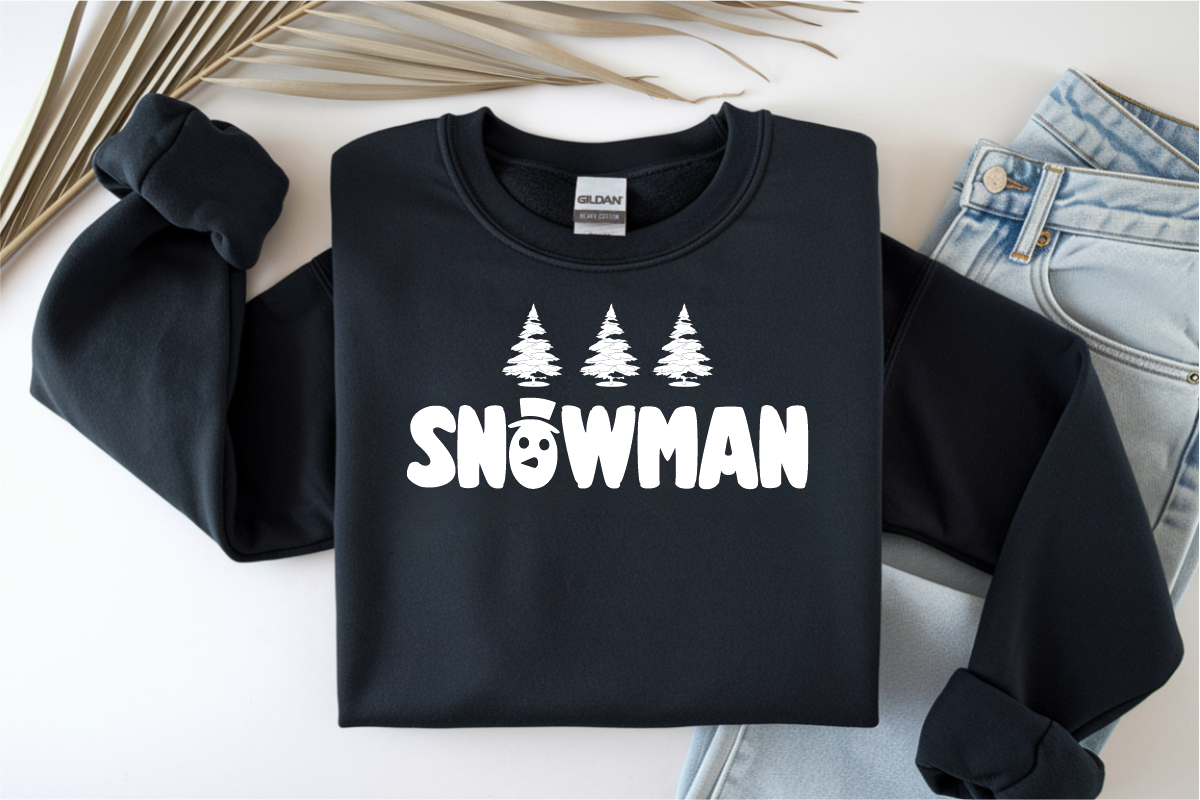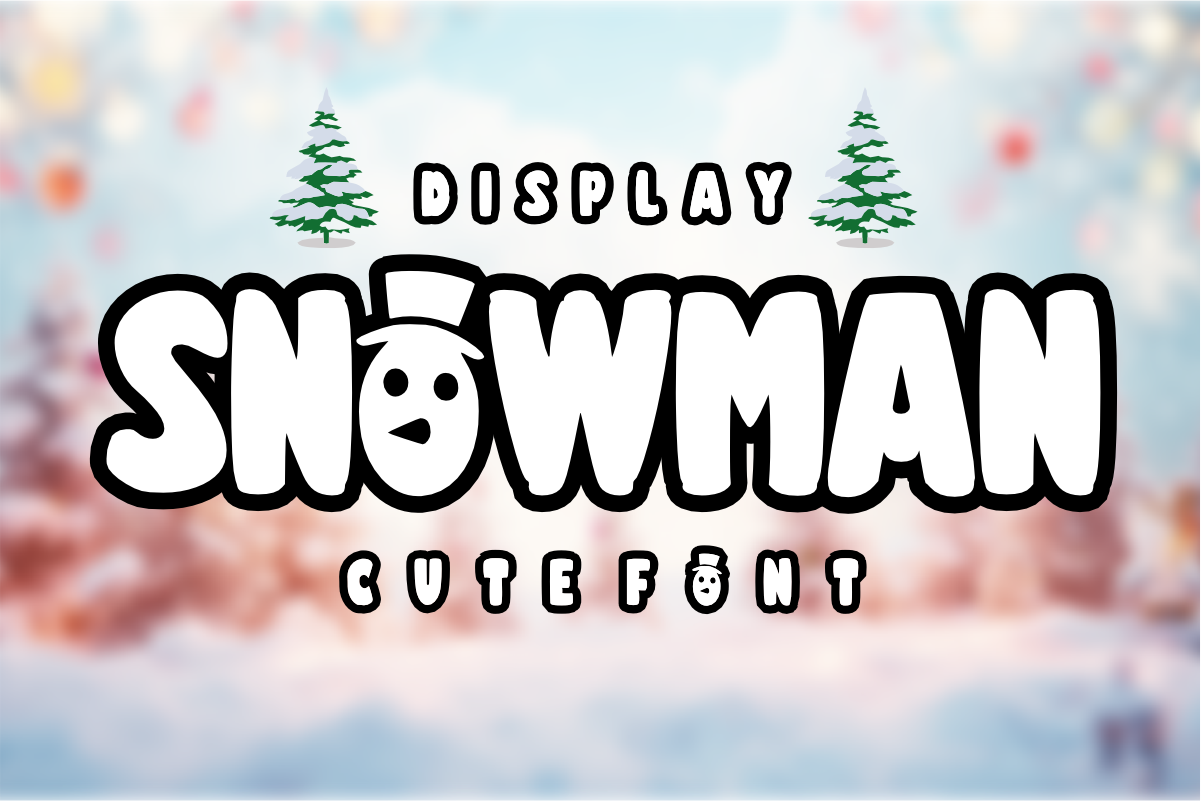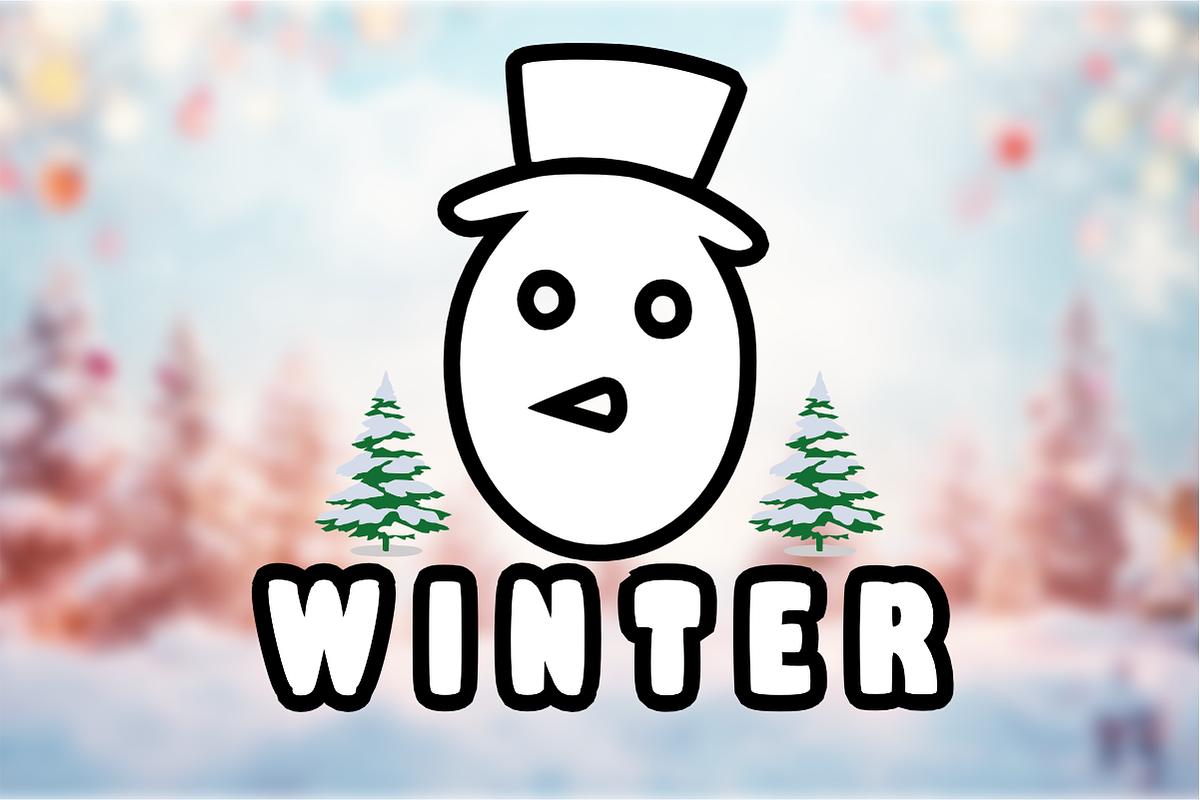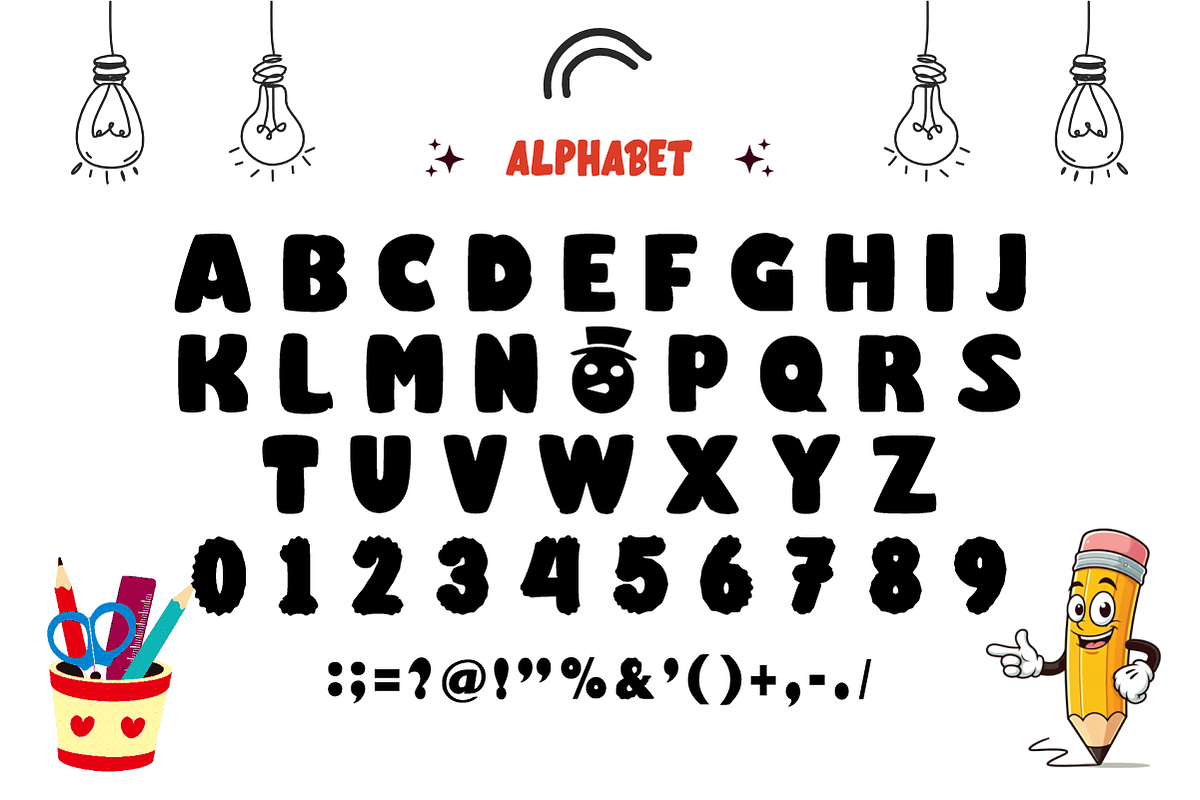
Snowman - Cute Winter Font
Snowman is a whimsical, ultra-chunky winter display font featuring playful, rounded letters and a cute snowman character design built right into the letterforms. Perfect for Christmas decorations, winter holiday branding, and joyful kids' crafts, this cartoon font adds a festive, cozy pop to any design. Every character is cleanly vectorized to guarantee smooth, effortless cutting on Cricut and Silhouette machines.
Uppercase Character Set
Numbers & Basic Punctuation